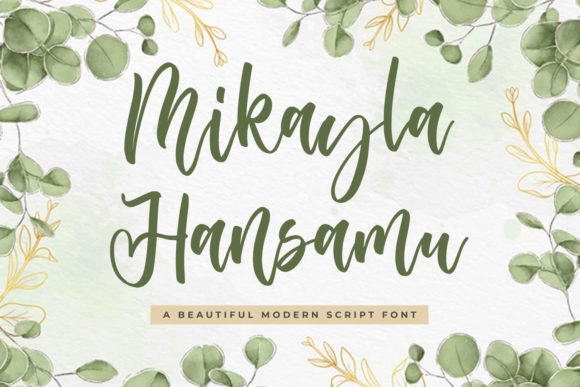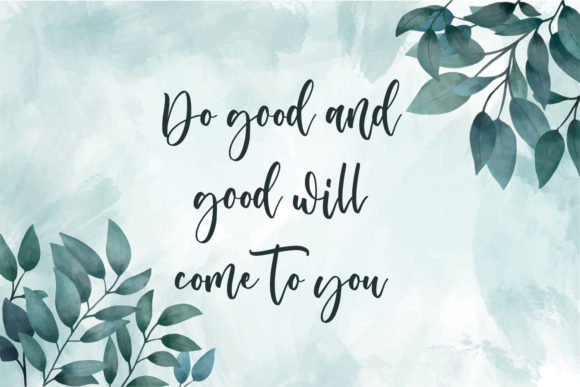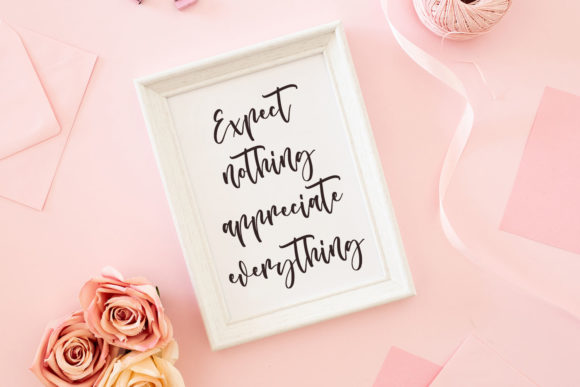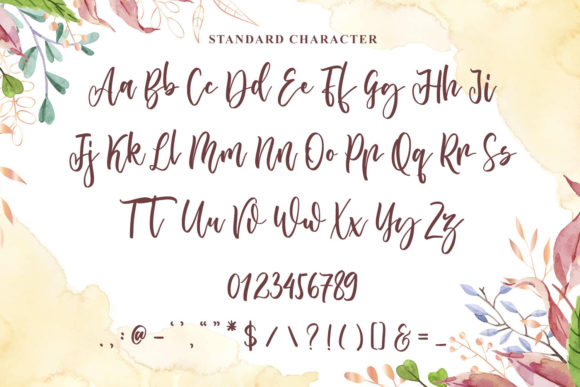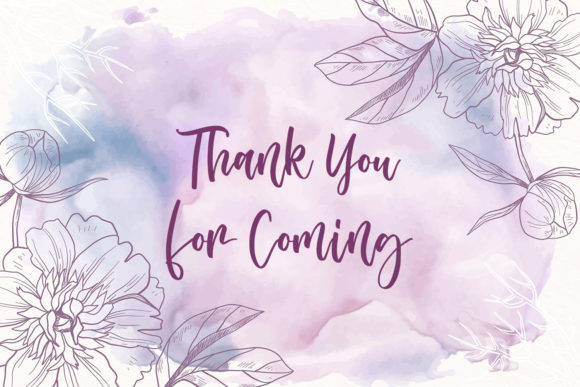
Mikayla Hansamu Font
About Mikayla Hansamu Font
Mikayla Hansamu is a sweet and beautiful script font. Fall in love with its incredibly versatile style and use it to create gorgeous wedding invitations, beautiful stationary art, eye-catching social media posts, and much more!